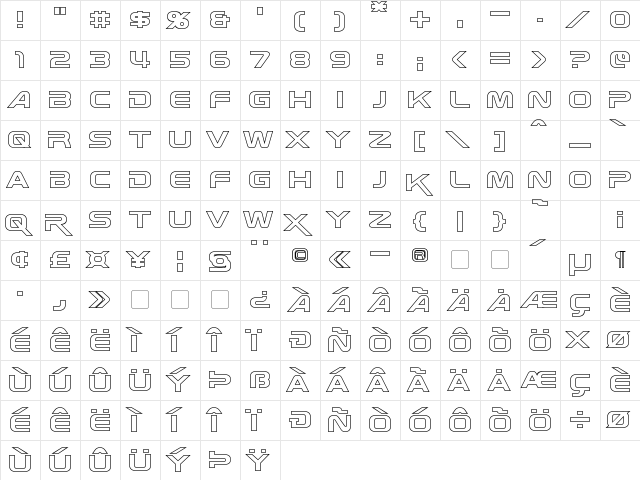
Zebulon Hollow Regular
| Foundry | Neale Davidson |
| Designer | Neale Davidson |
Design Context for Zebulon Hollow Typeface
Zebulon Hollow offers clean, dependable letterforms without strong stylistic allegiance, making it a practical choice for designers who need flexibility.